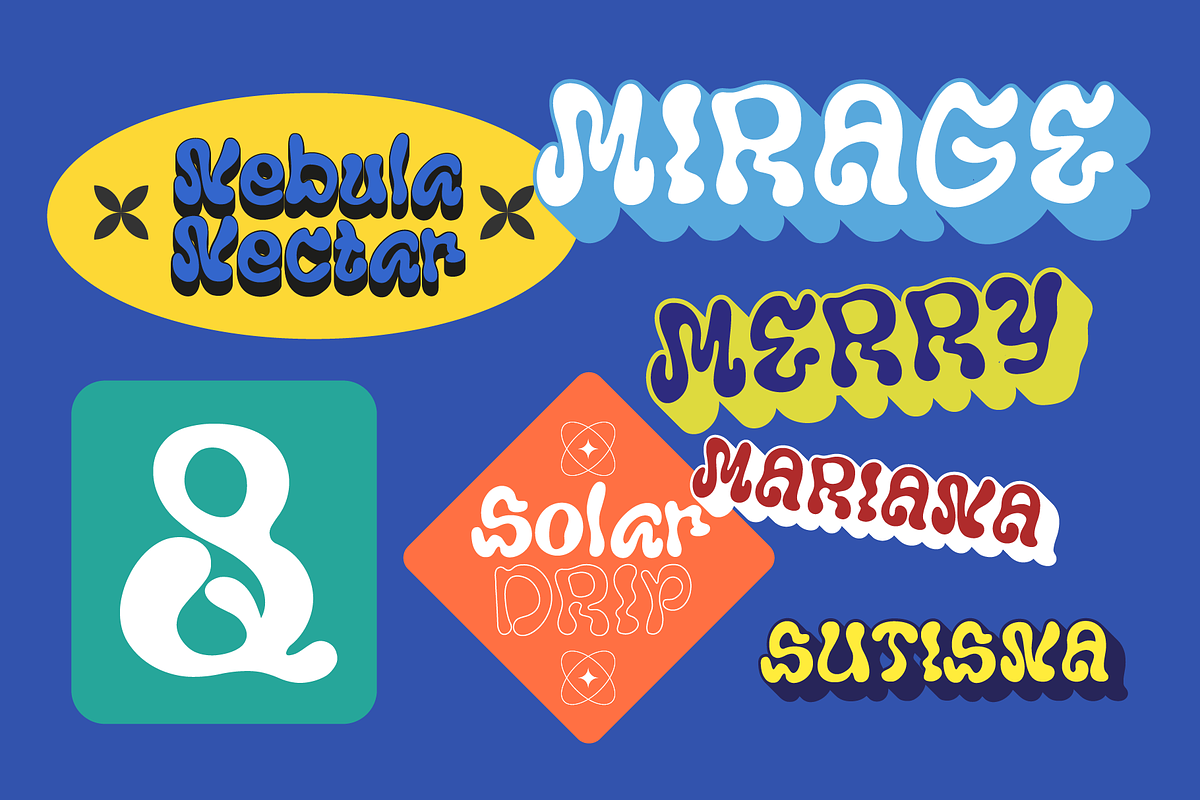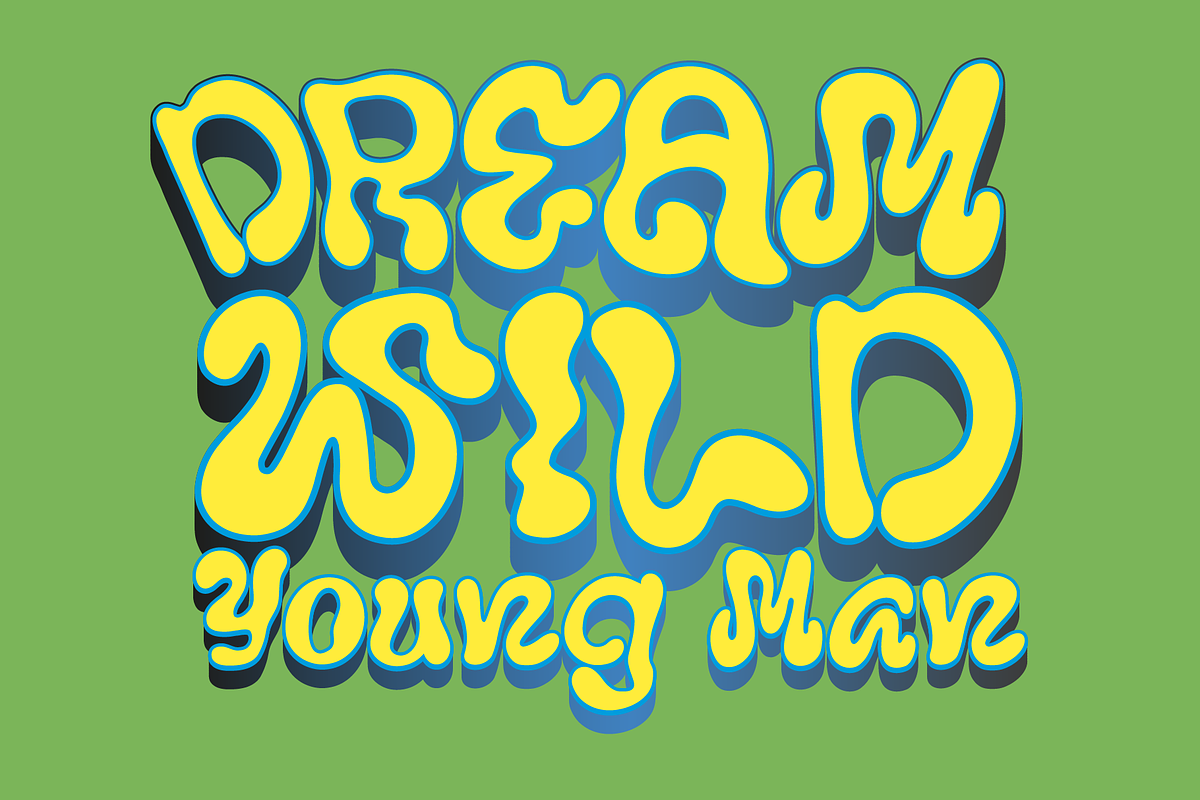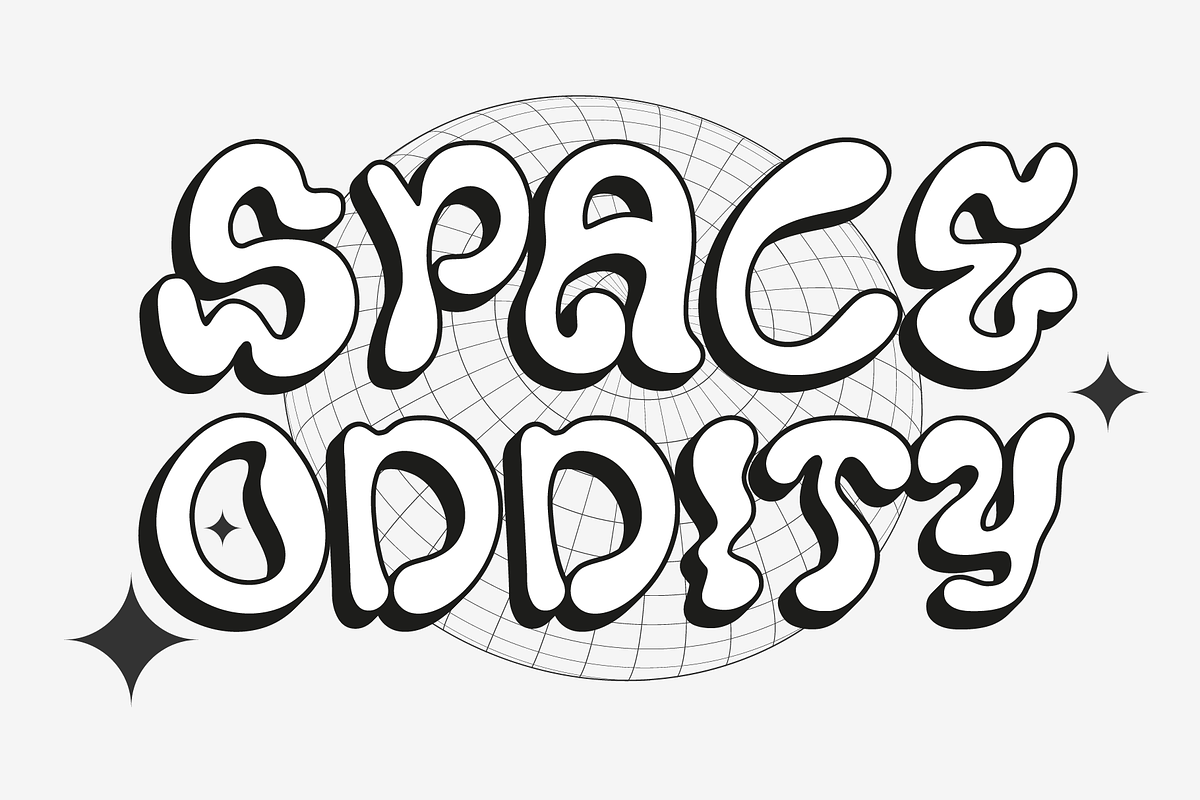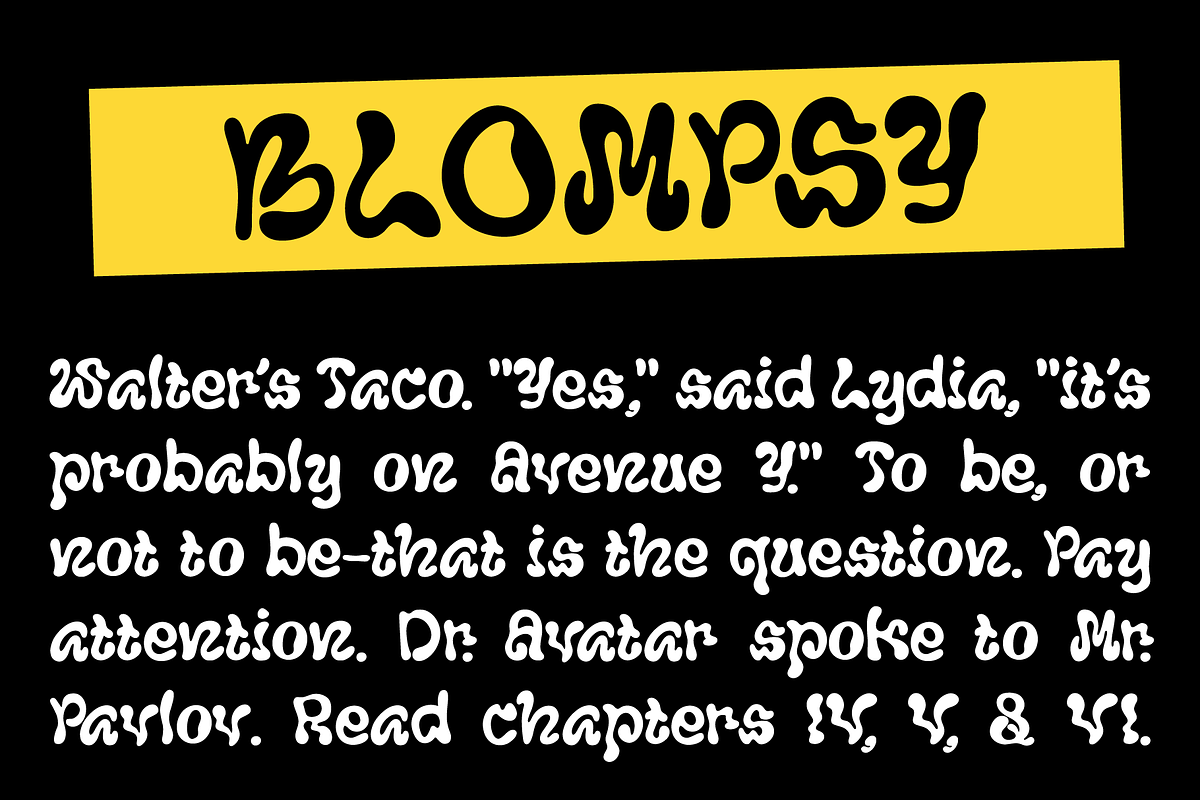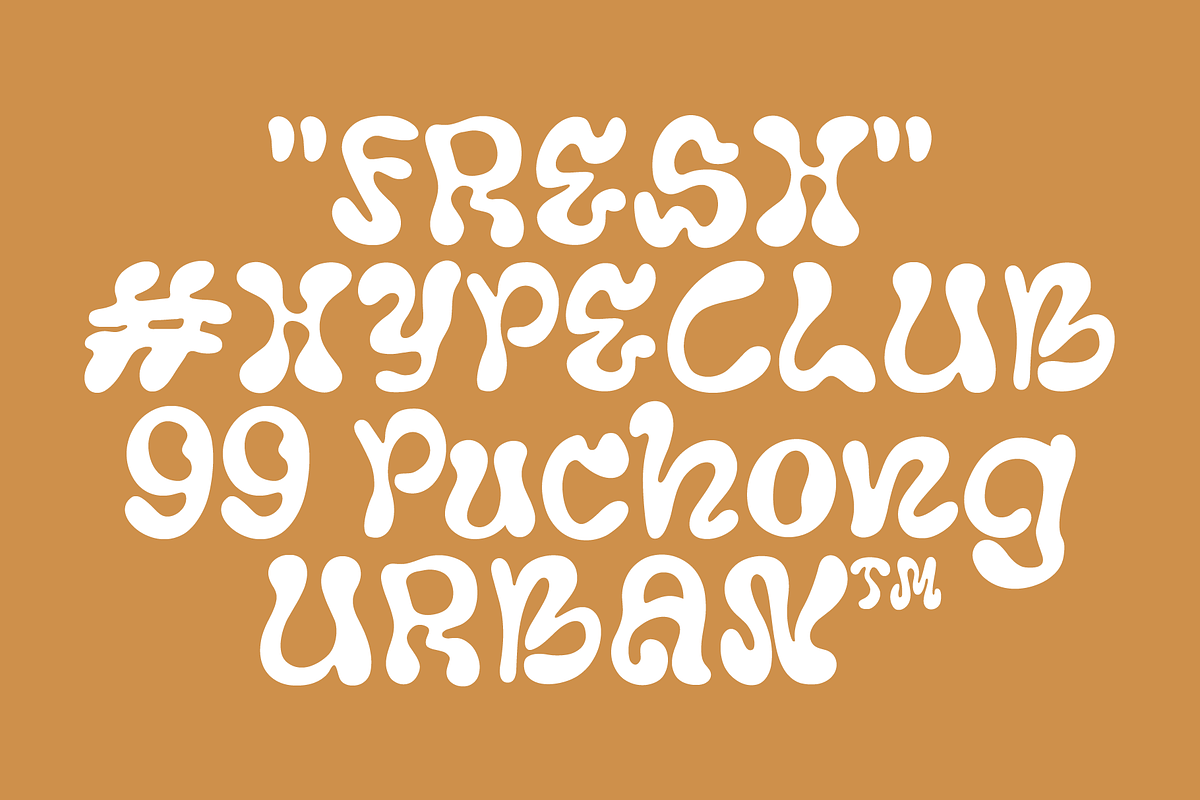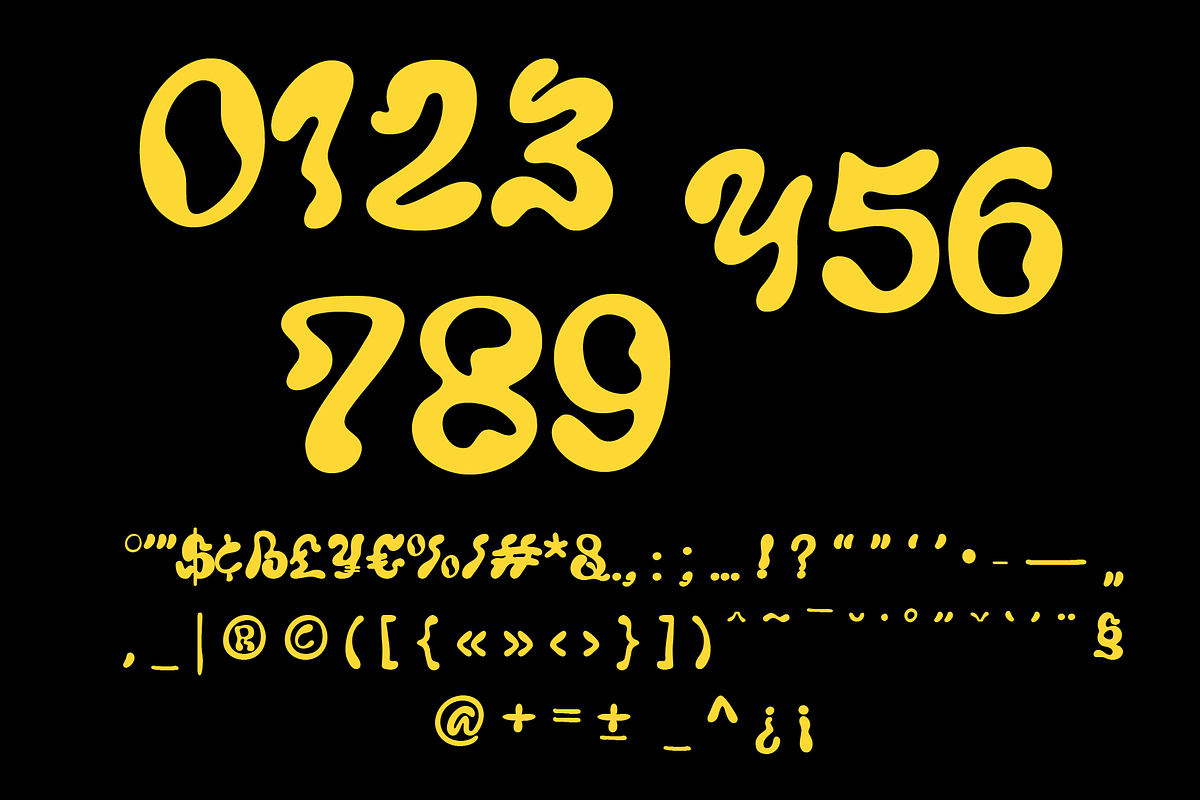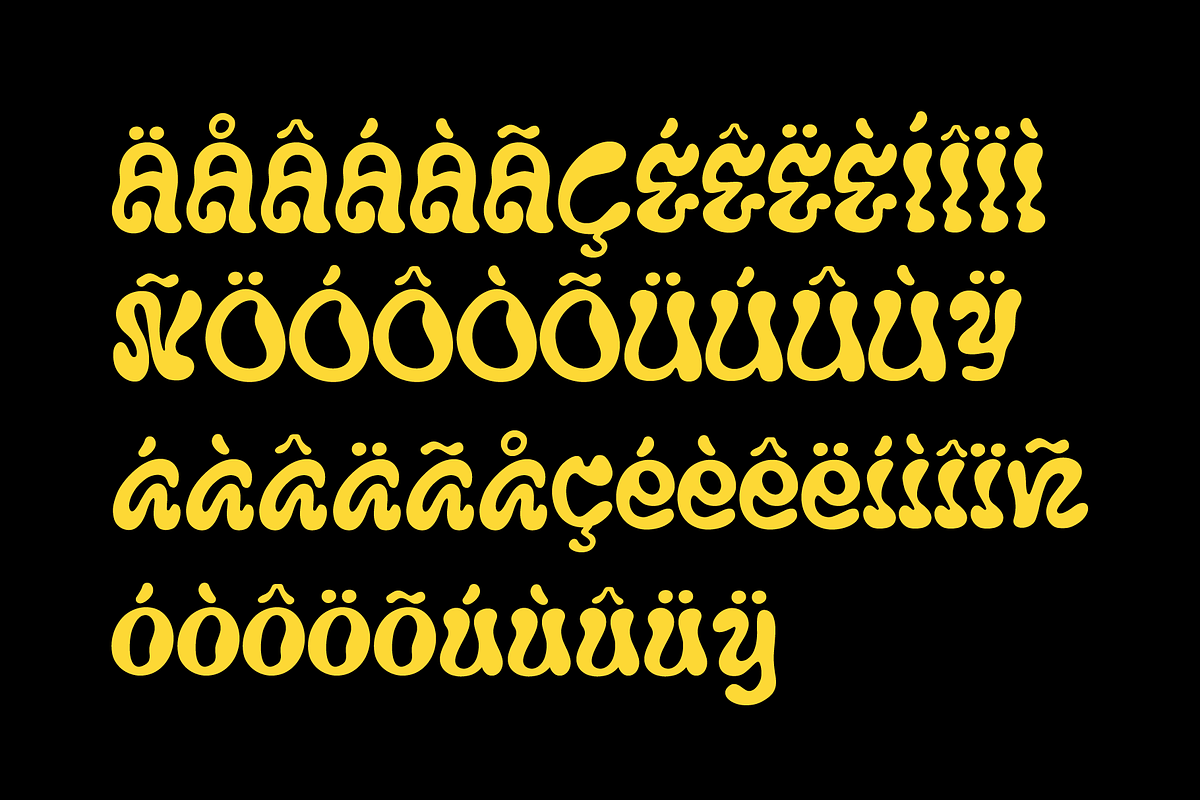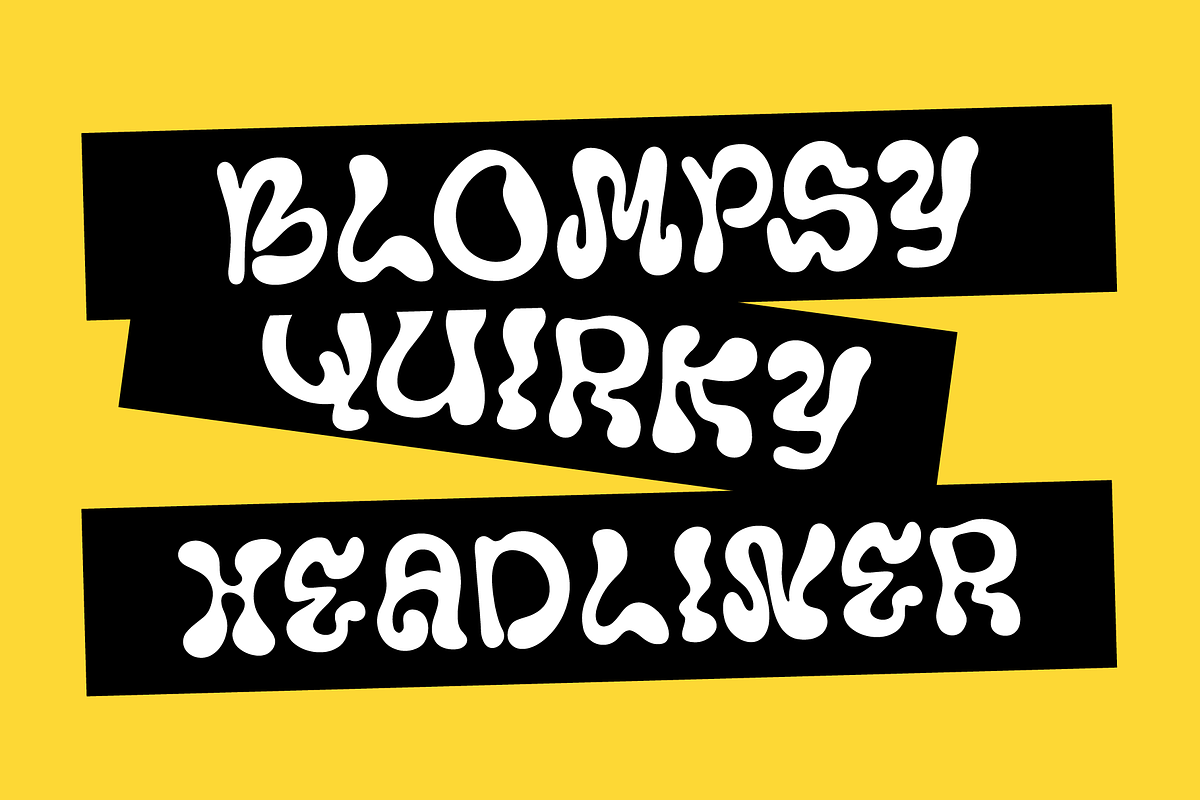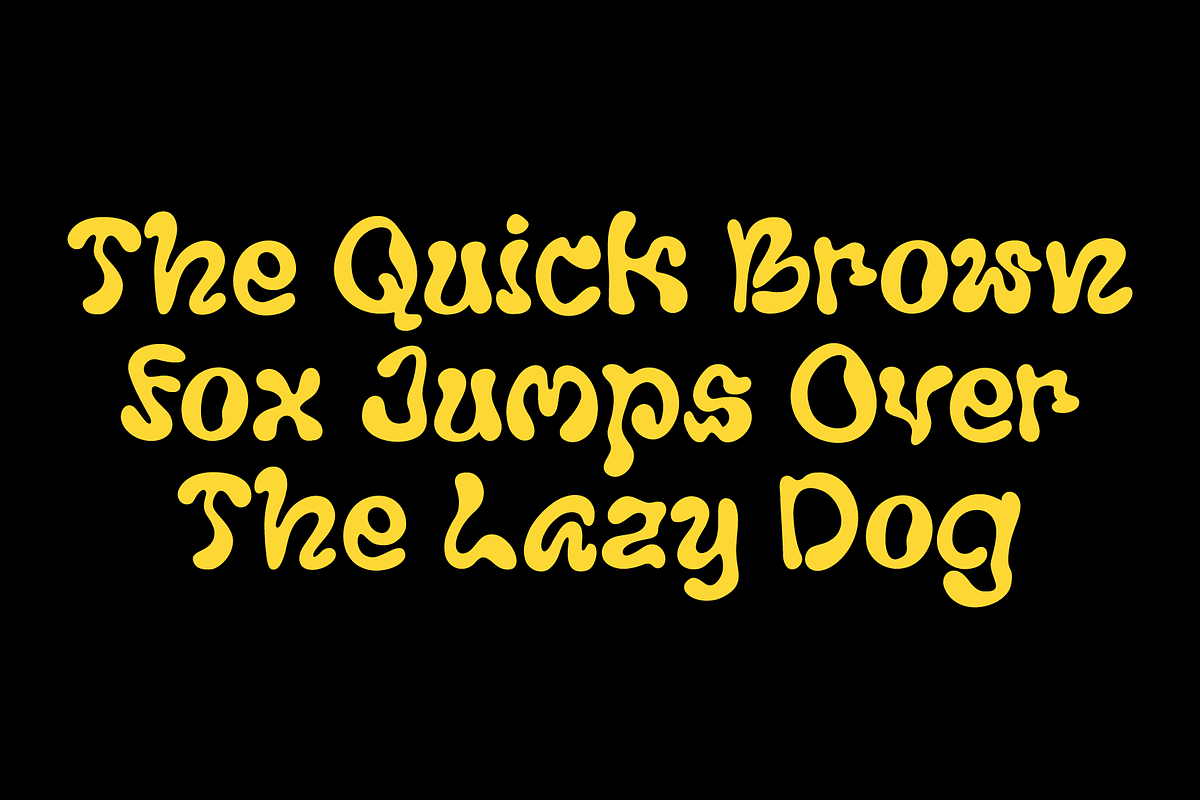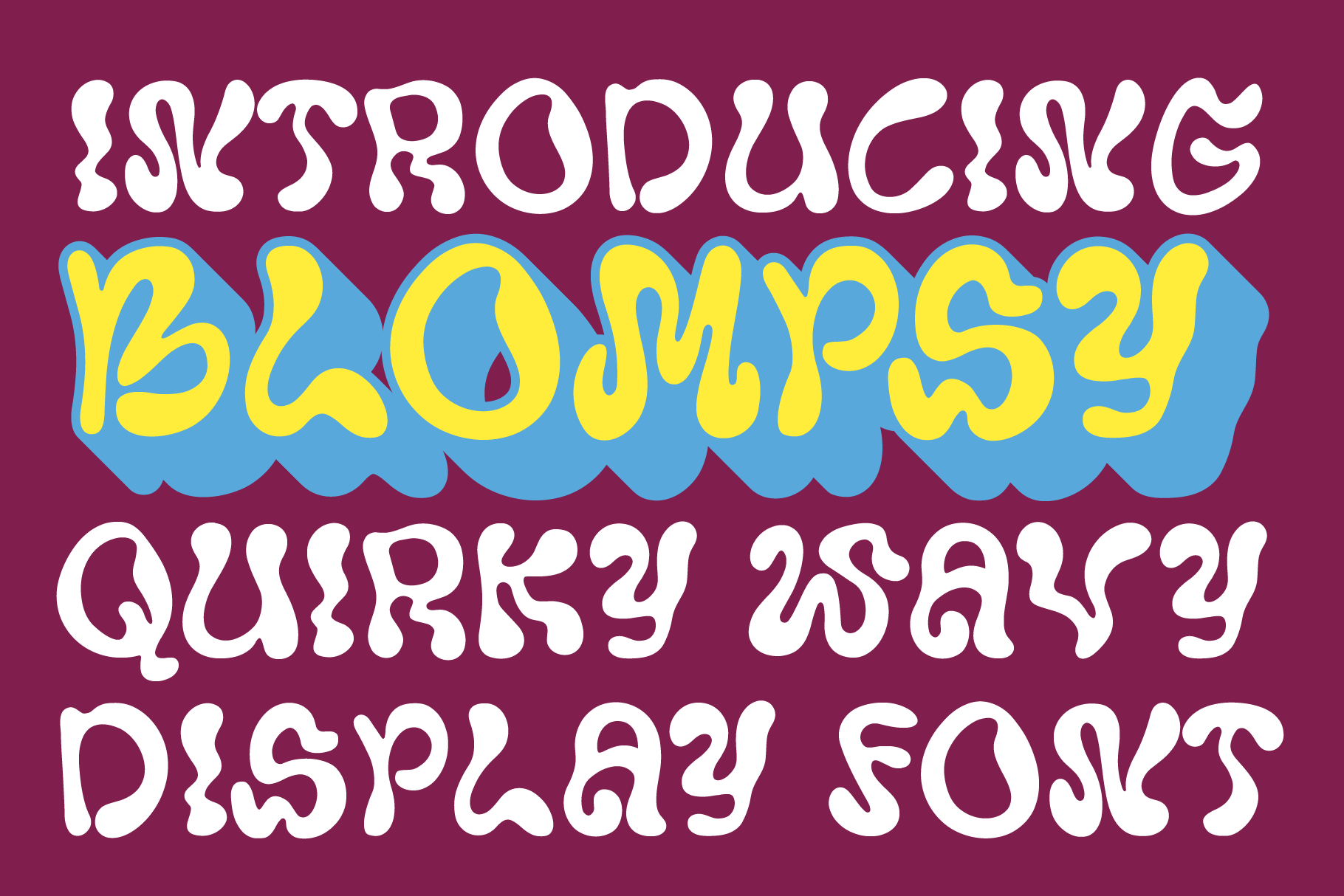
Blompsy – Quirky Psychedelic Font
Blompsy is a psychedelic font with a quirky and wavy style, perfect for bold headlines, music posters, and album covers. Its experimental letterforms bring retro charm with a modern twist, making it an ideal title font for projects that need a unique and psychedelic eye-catching vibe.
This font works great for:
- Psychedelic & retro-inspired designs
- Music branding, gig posters, and album artwork that need a psychedelic font touch.
- Quirky editorial headlines & social media graphics
- Eye-catching titles for merchandise, stickers, and apparel
- Numbers, punctuation, and multilingual support
Add a touch of groovy energy to your creative projects with Blompsy – the quirky psychedelic font that makes every headline pop and trippy.